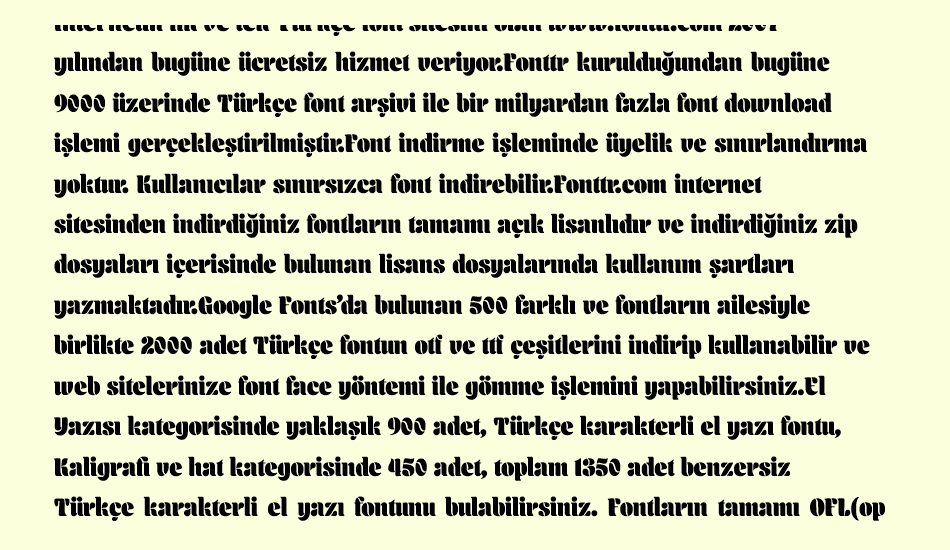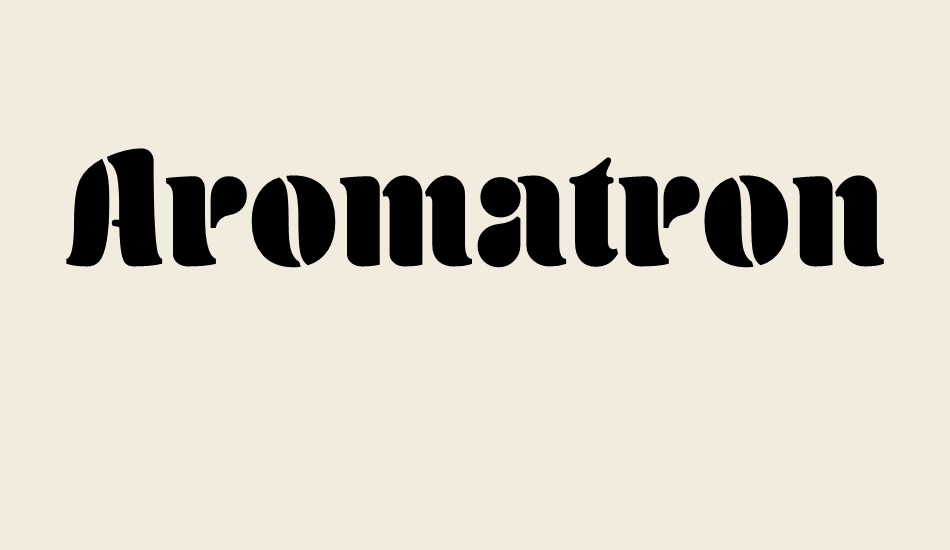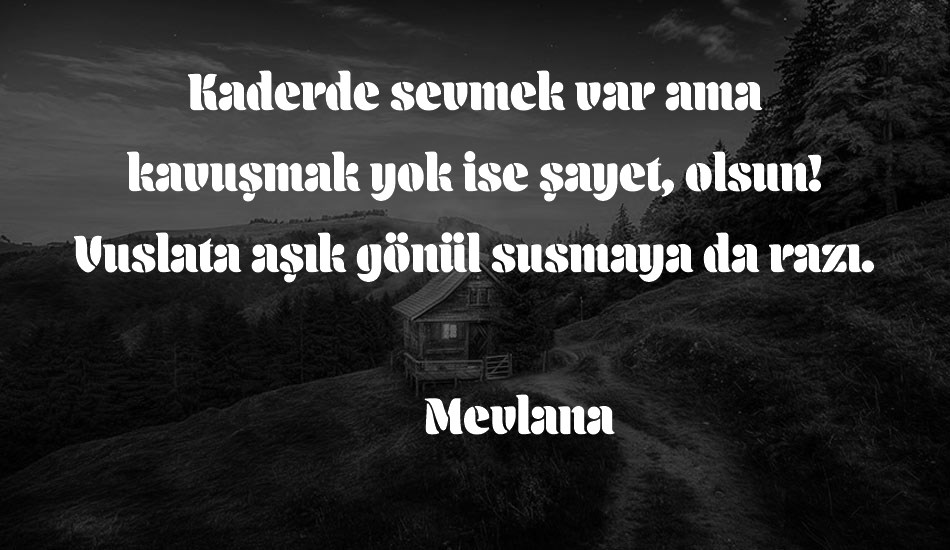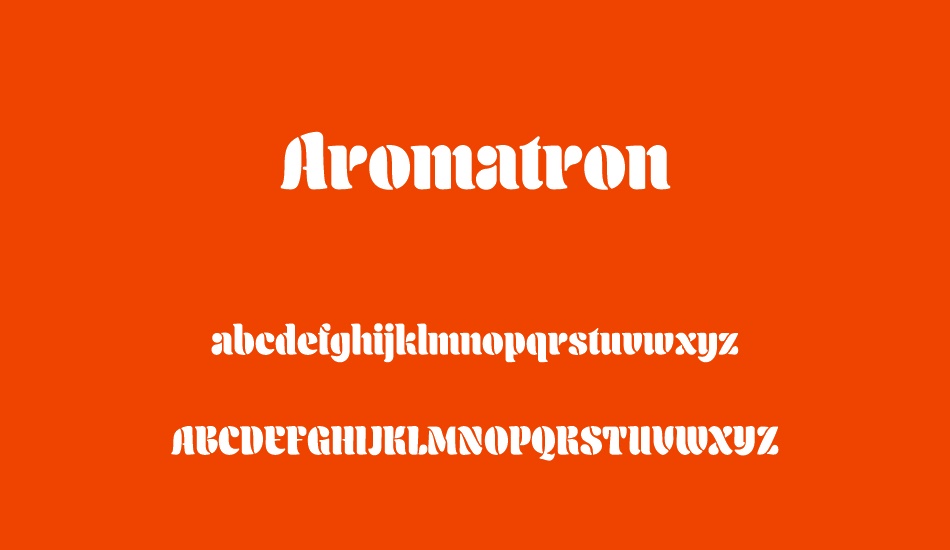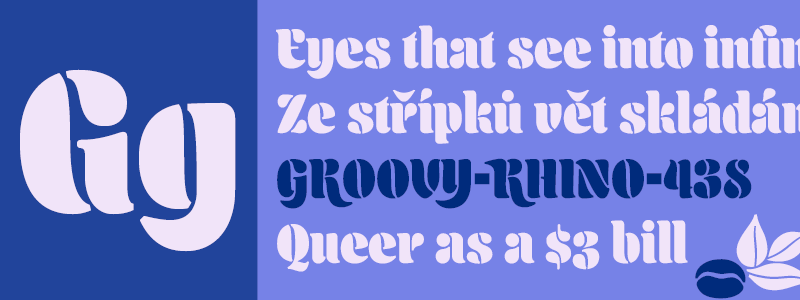
Aromatron font
Aromatron explores the stencil type genre, gracefully balancing between legibility and aesthetics. Unique solutions give the type an even, dark color.
The font supports most Latin-based languages and IPA, features lining and old-style figures, small, petite and medium caps, swash caps, subscript & superscript, and stylistic sets eliminating ascenders, descenders, or both for a unicase effect or compact typesetting. As an extra, a selection of typographic ornaments and dingbats is provided.
—Adam Jagosz, the designer